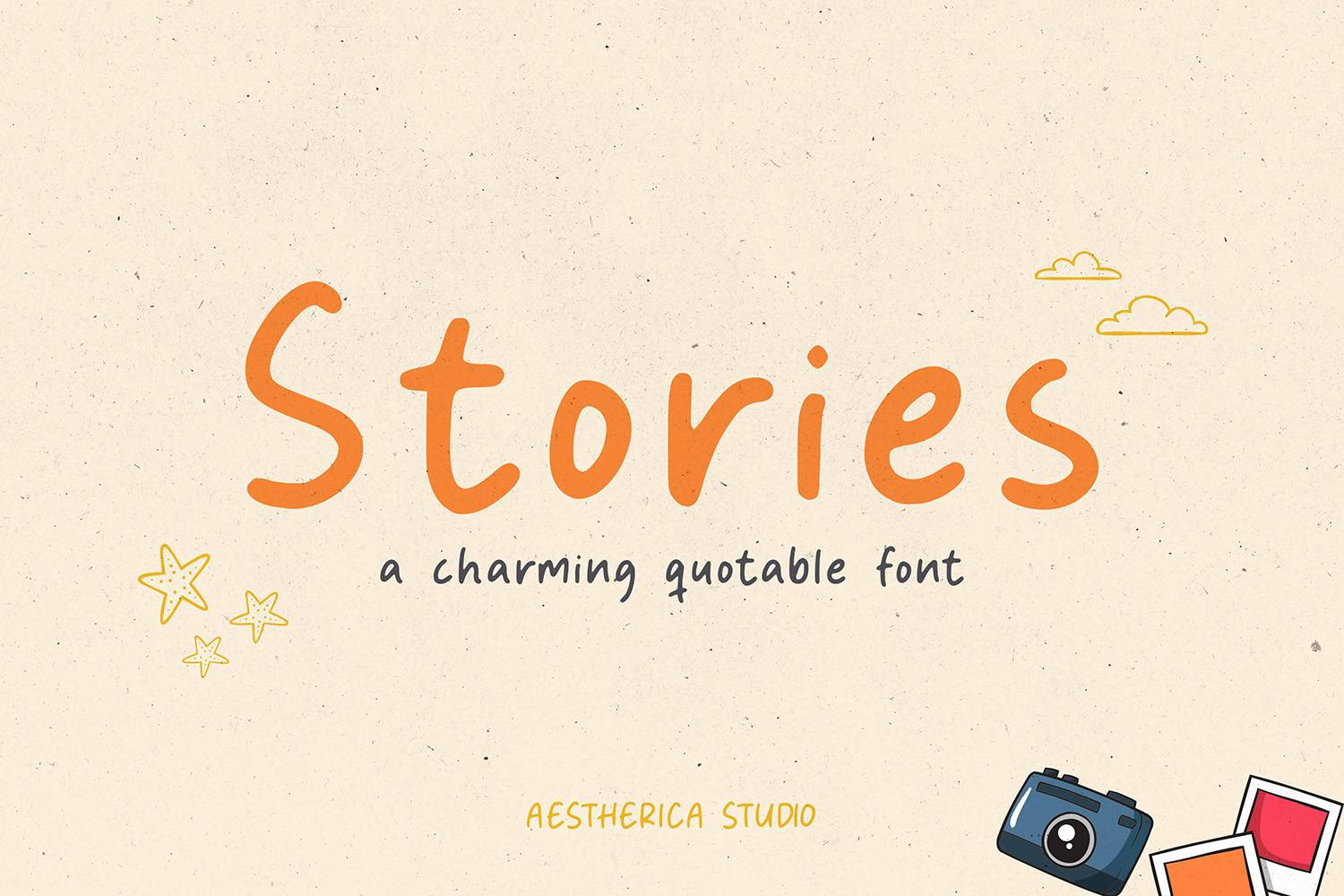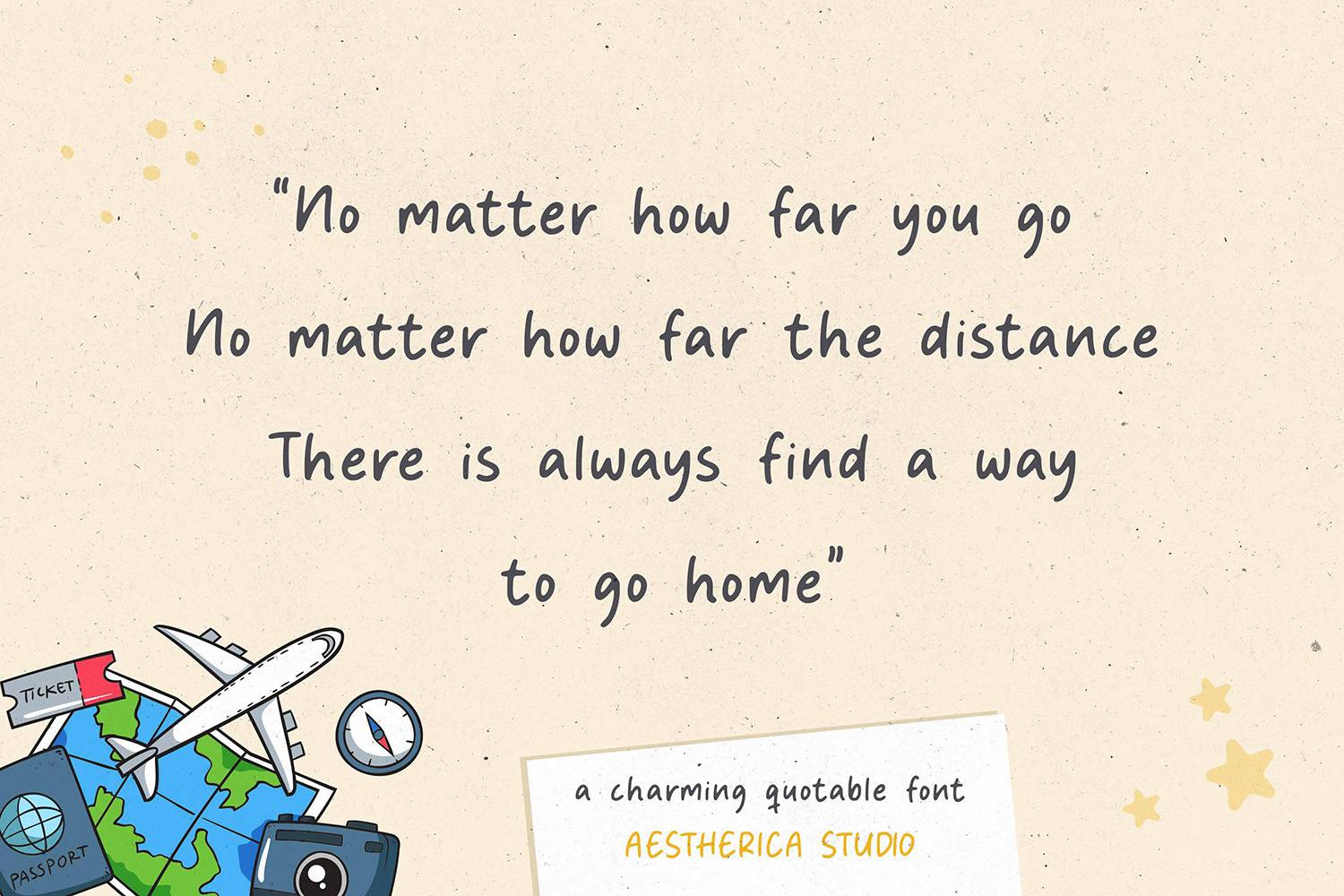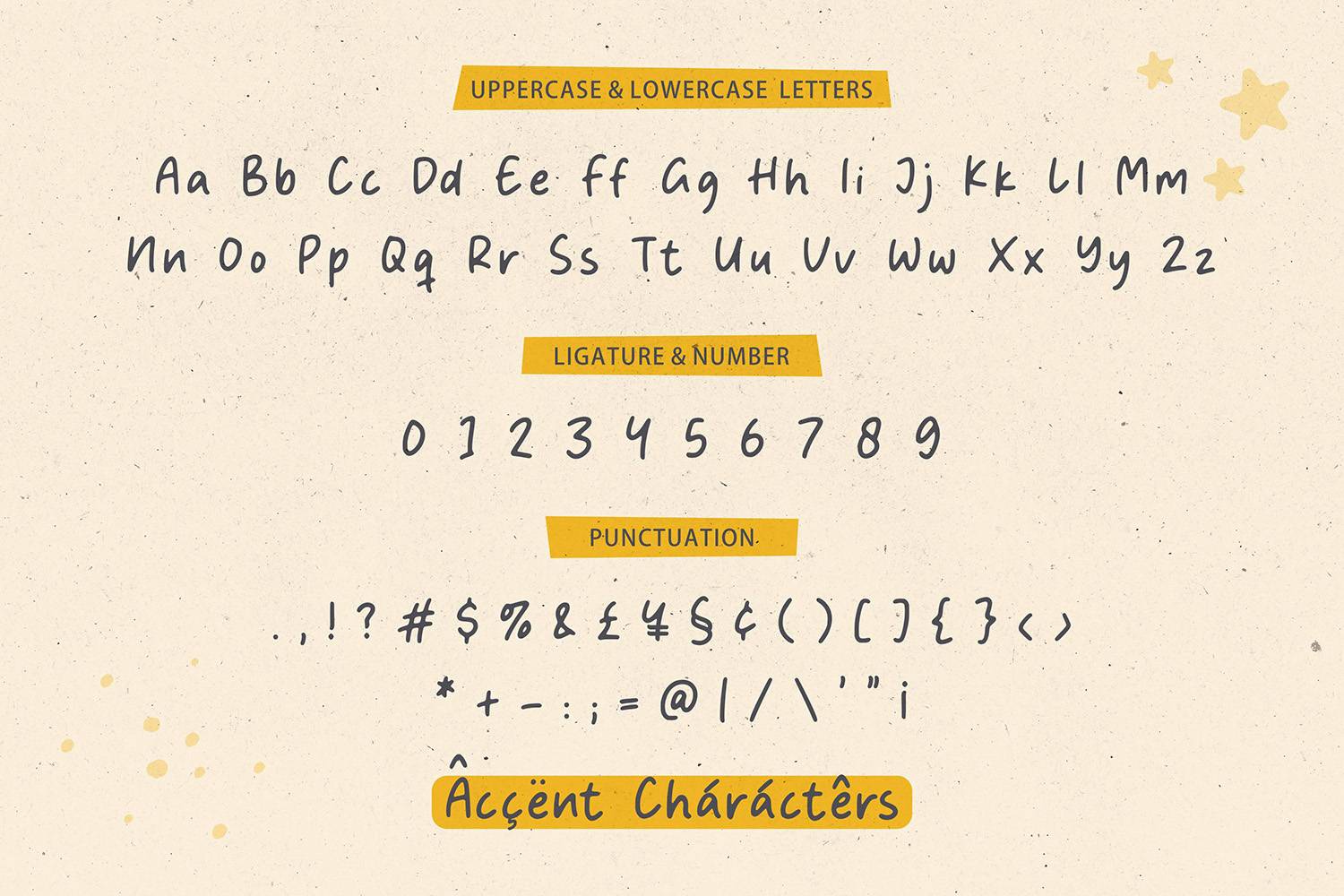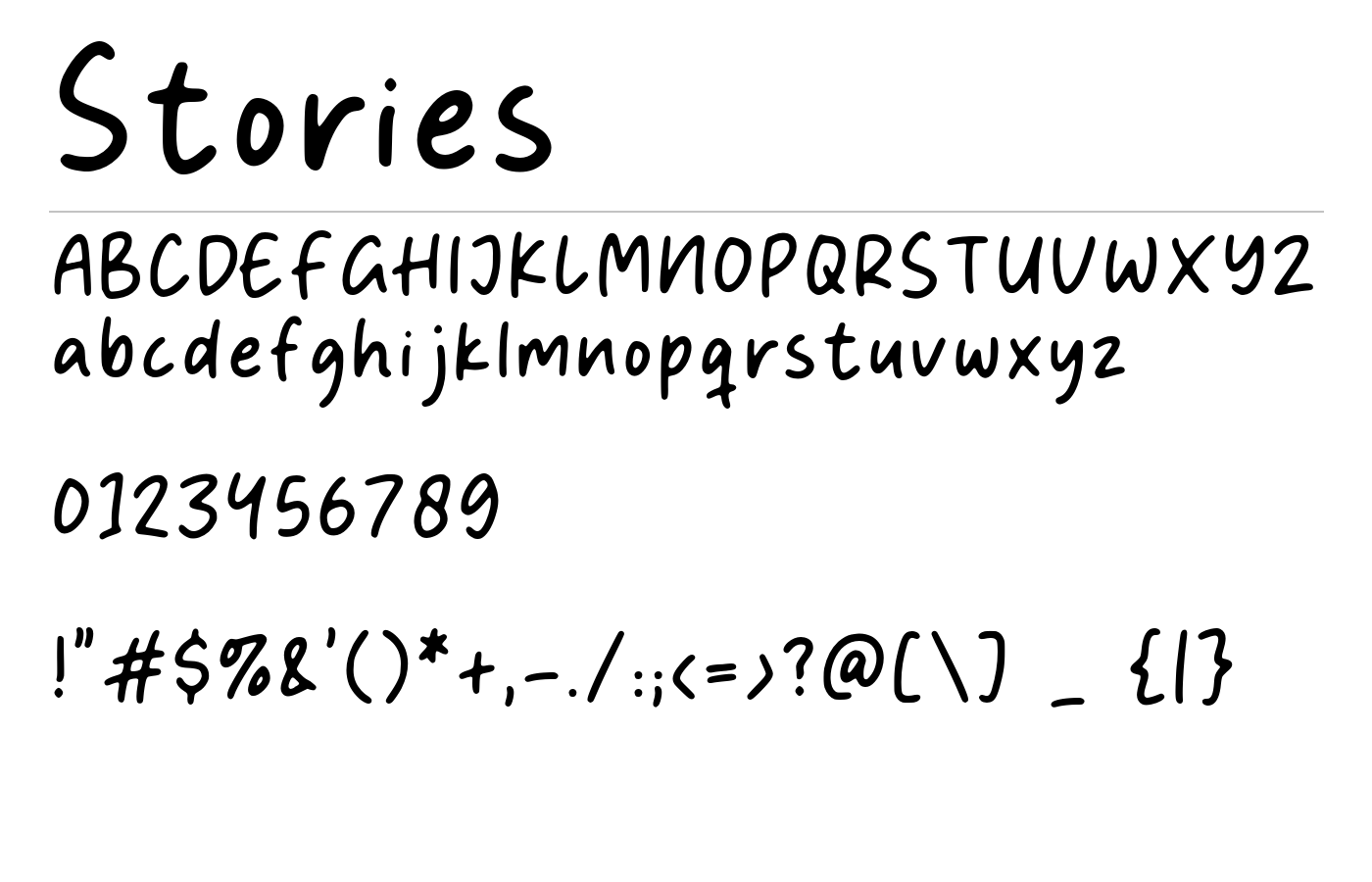
Stories Font is a casual, handwritten sans serif typeface with a warm and friendly feel, featuring rounded strokes and playful, slightly irregular letterforms. It works well for informal designs, personal branding, and creative projects that want to convey approachability and a human touch. This font is perfect for headlines, social media graphics, and children's books where a relaxed, engaging style is key.
Stories Font
About Stories Font